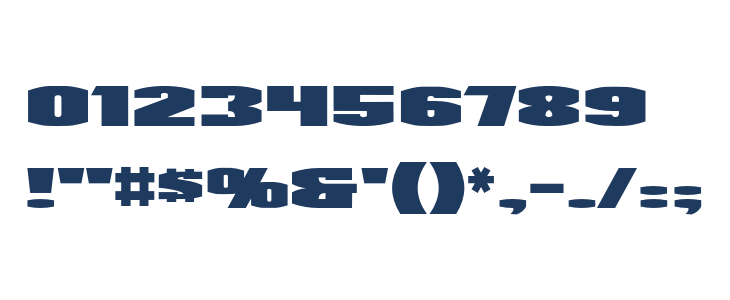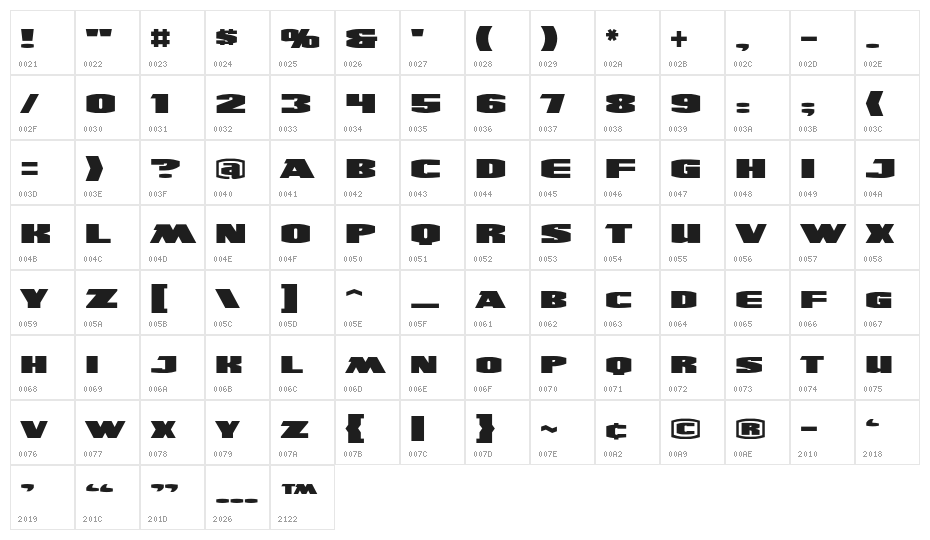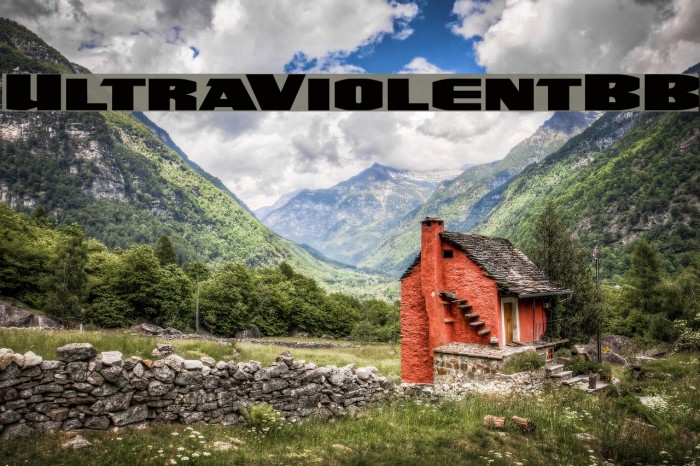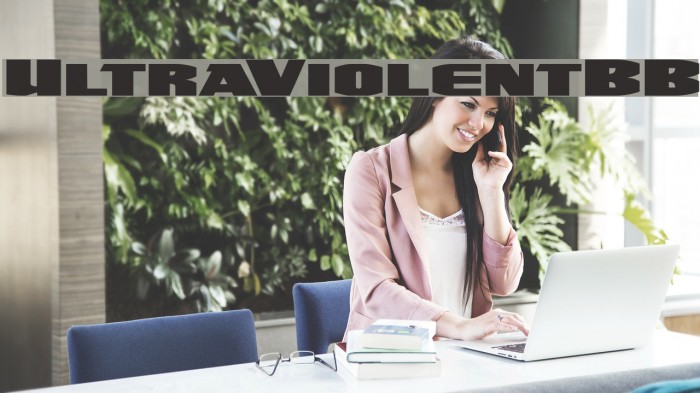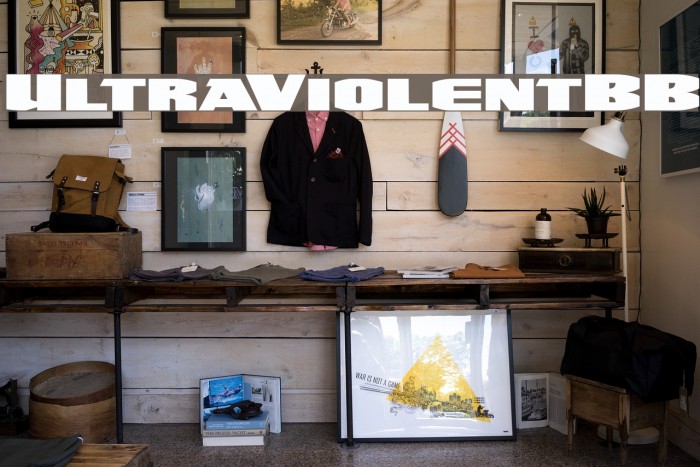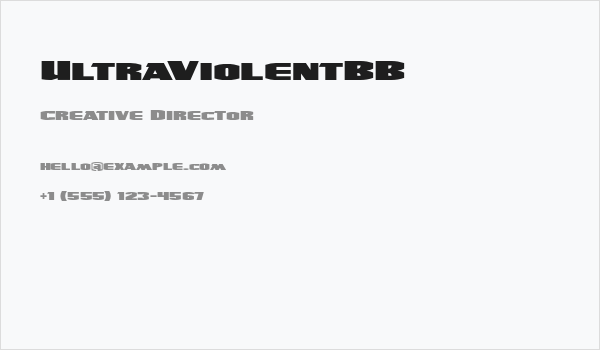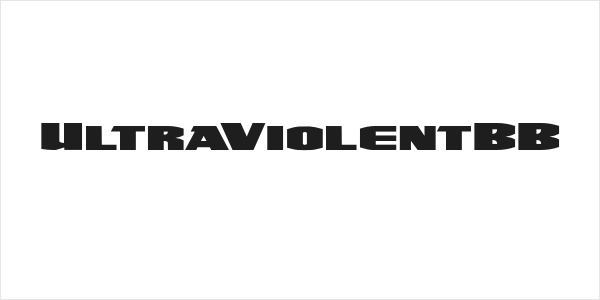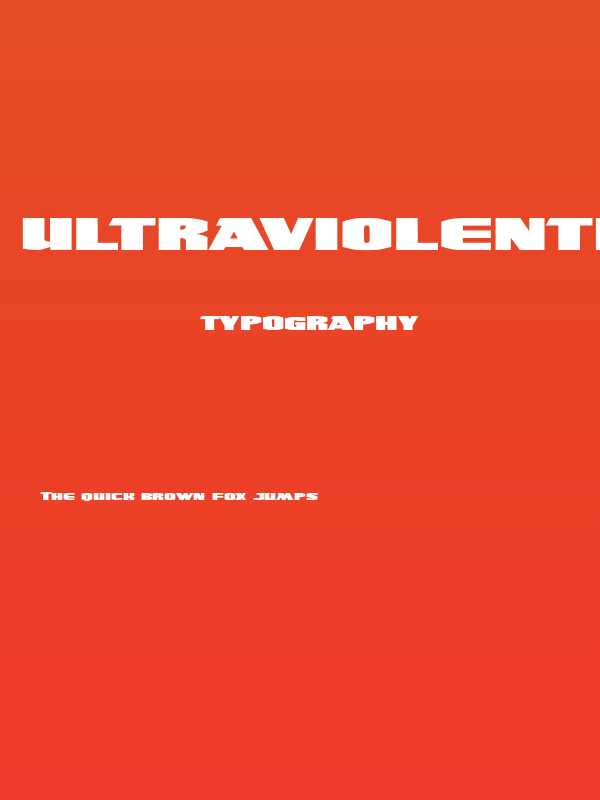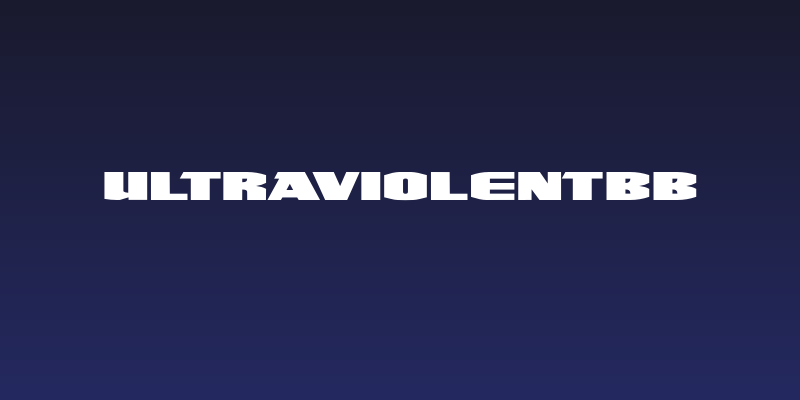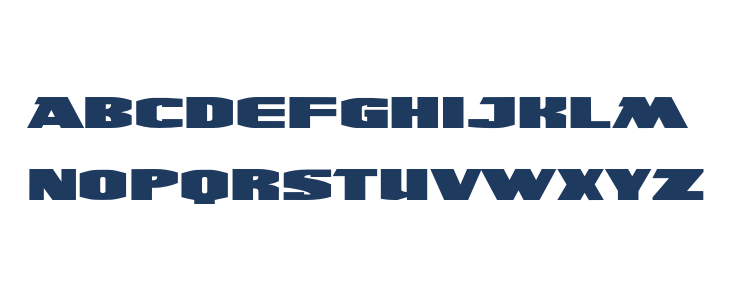
UltraViolentBB Font
UltraViolentBB Description
This font features a bold and aggressive design, characterized by its thick, block-like letters with sharp angles and a futuristic aesthetic. The uppercase letters are particularly striking, with a strong presence that demands attention. The numbers and special characters maintain this bold style, ensuring consistency across all glyphs. The font's design is reminiscent of sci-fi and action themes, making it ideal for projects that require a strong visual impact.
| Proposed Projects | Ideal for sci-fi movie posters, video game titles, and branding for tech or sports companies. |